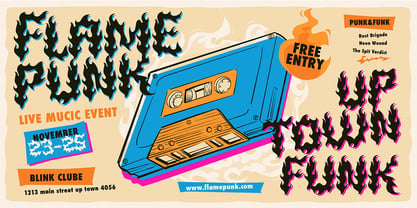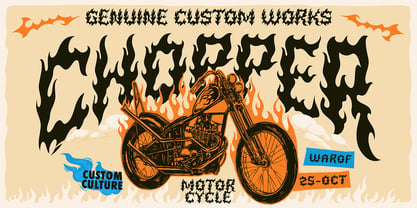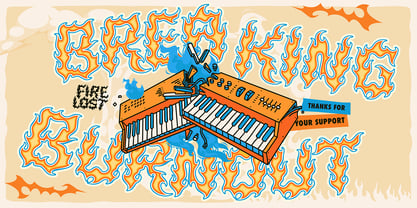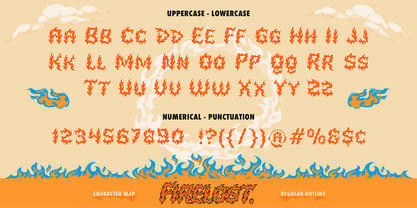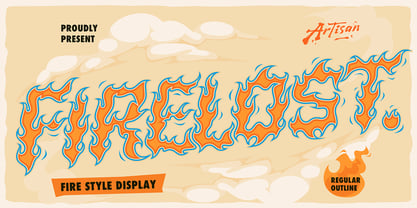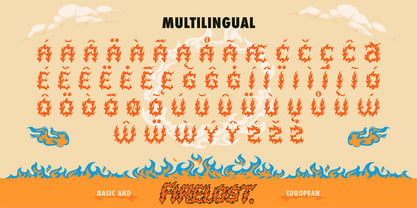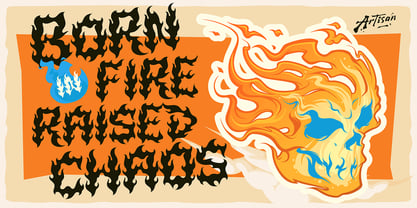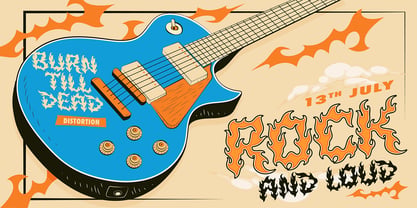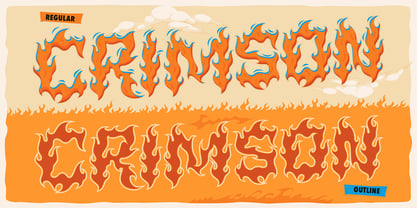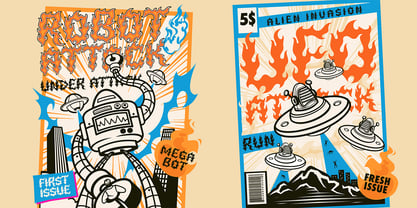
Firelost
by Artisan Themes
The Firelost Font Family was designed by Meidy Meichico and published by Artisan Themes. Firelost contains 2 styles and family package options. More about this family
Life is too short for boring fonts, right? Meet Firelost, a wild and blazing display font that brings instant heat to your design! Inspired by rock poster, vintage comics, and that unstoppable fiery spirit, this font is made to stand out and scream "turn up the volume!" Whether you're designing band merch, retro covers, extreme sport posters, or simply want your text to look like it's on fire. It comes in Regular and Outline style, so you can mix, match and create explosive combinations that'll light up your design world. Let's face it, sometimes your creativity just needs a little chaos and flame to burn brighter. So go ahead set your next project on fire with Firelost! Perfect for: - Rock & punk posters - Streetwear branding - Retro comic titles - Skateboard or music merch - Anything bold, loud and full of energy Features: - A - Z set (Uppercase & Lowecase) - Number - Ligatures - Punctuation - Multilingual
Designers: Meidy Meichico
Current Foundry: Artisan Themes